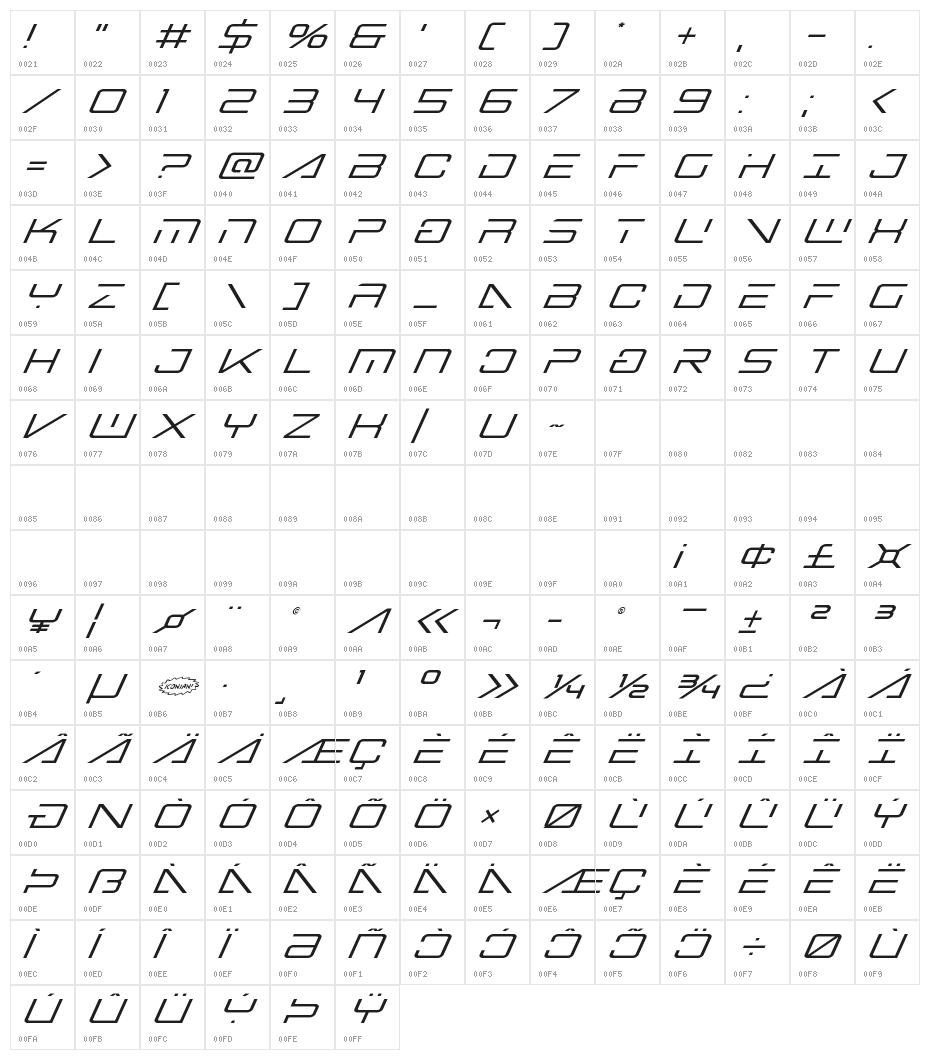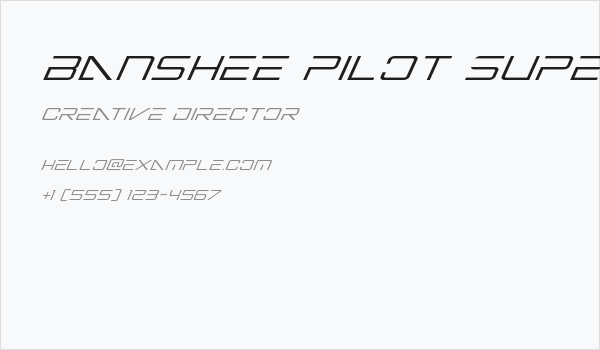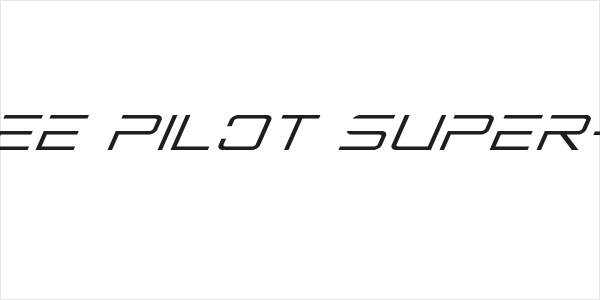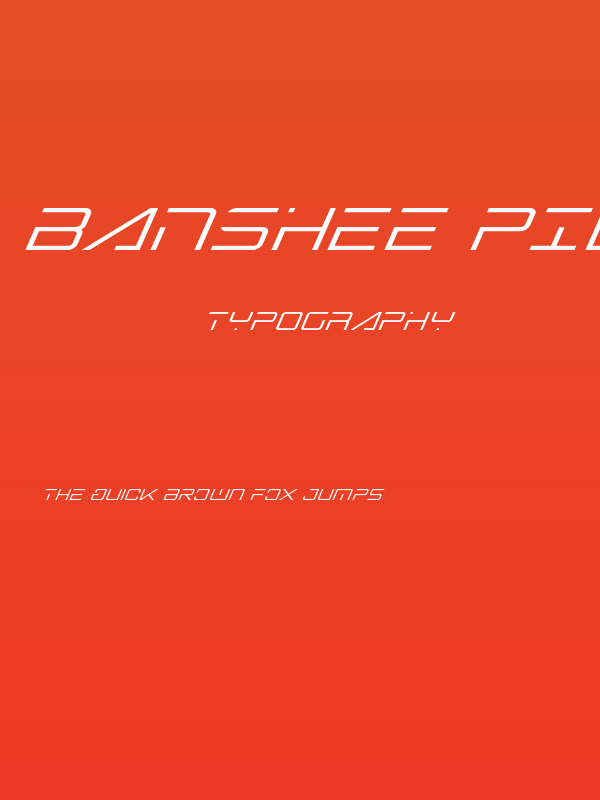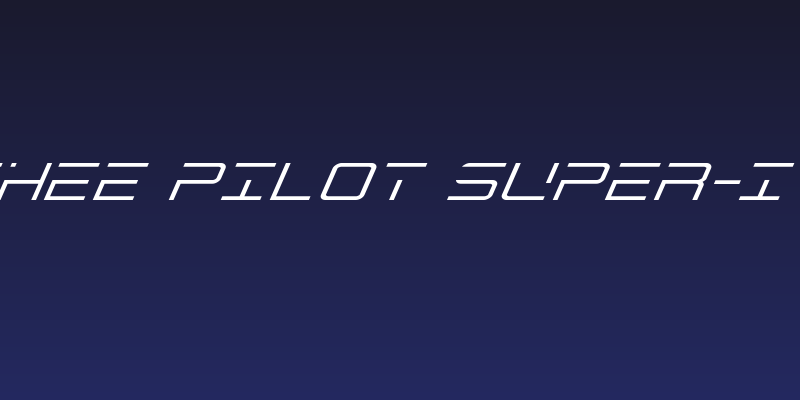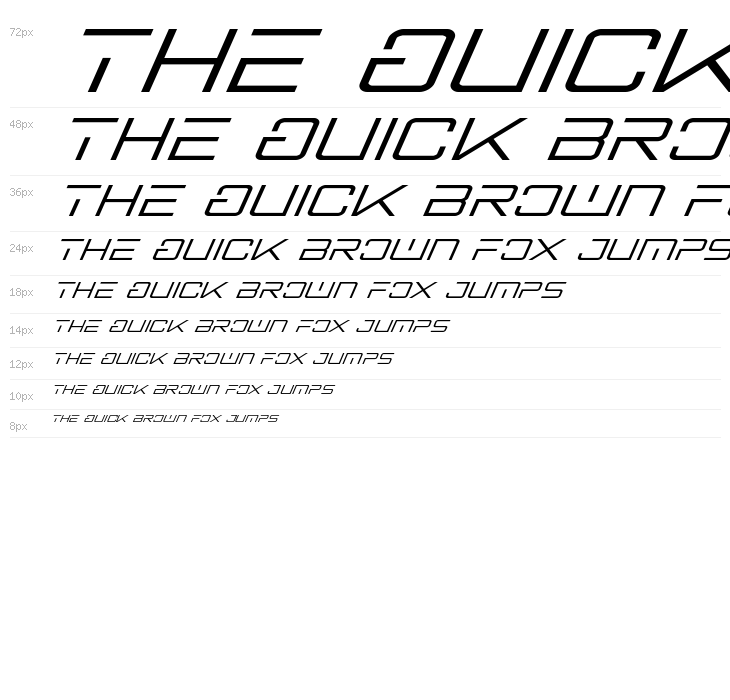
Banshee Pilot Super-Italic Font
Banshee Pilot Super-Italic Description
This font features a sleek, futuristic design with a distinct italic slant, giving it a dynamic and forward-moving appearance. The characters are constructed with clean, sharp lines and a geometric structure, enhancing its modern aesthetic. The uppercase and lowercase letters maintain a consistent style, with unique angular cuts and a streamlined form. The numerals and special characters complement the overall design, ensuring uniformity across all glyphs. Its aerodynamic look makes it suitable for projects that require a sense of speed and innovation.
| Proposed Projects | Ideal for technology branding, sci-fi movie titles, automotive designs, and sports team logos. |